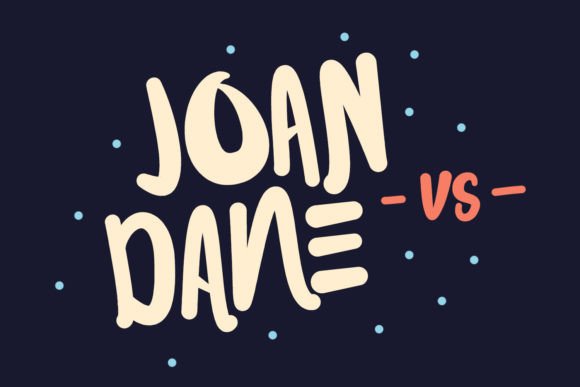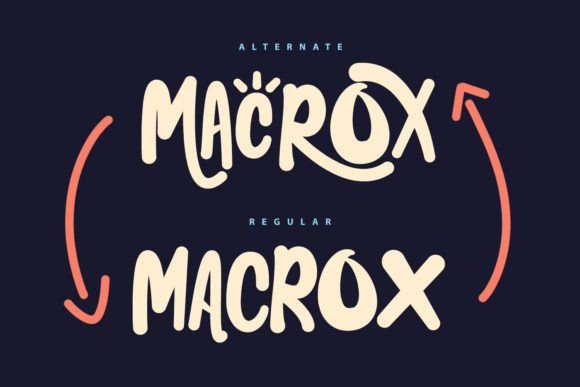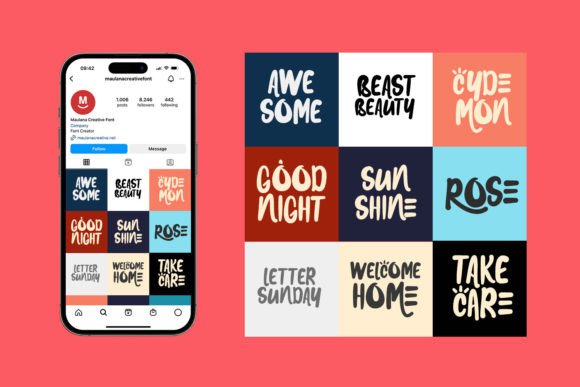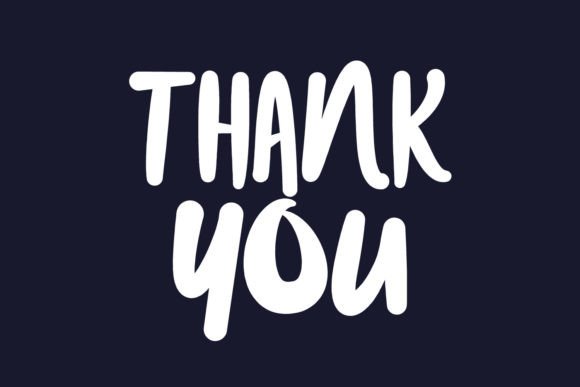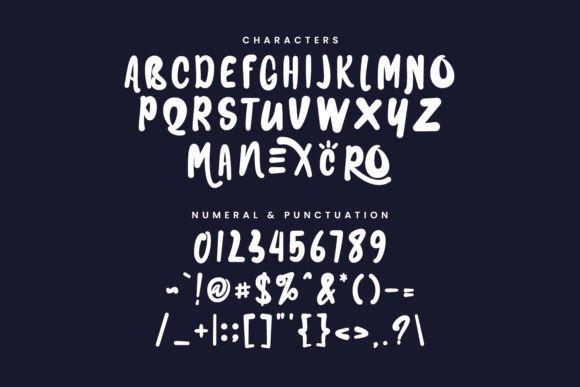
Introduction to Macrox Font
You’ve spent hours perfecting your design, but something’s missing. The colors are right, the composition is on point, but the text just doesn’t have the impact you want it to. That’s where the Macrox Font comes in – a graffiti display font that adds a bold, urban flair to your designs.
Imagine being able to create eye-catching street art, posters, or designs that exude attitude and energy. With Macrox Font, you can bring your creative vision to life and make statements that truly stand out. Whether you’re a seasoned designer or just starting out, this high-quality font is a valuable resource that’s sure to elevate your work.
Key Features of Macrox Font
- High-quality design resource with a unique aesthetic, perfect for creative projects.
- Includes a wide range of characters, including Latin, Cyrillic, and Greek alphabets, as well as punctuation and symbols.
Honest Review: Macrox Font
I recently stumbled upon the Macrox Font and I’m excited to share my thoughts on this design resource. Overall, I’m impressed with the quality and versatility of this font.
- High-quality design: The Macrox Font is well-crafted and exhibits a clean, modern aesthetic.
- Wide range of applications: The Macrox Font is suitable for various creative projects, from logos to editorial content.
- Limited character set: The font’s character set is somewhat limited, which may not be ideal for designers requiring a wide range of characters.
- Not ideal for small text: Due to its clean design, the Macrox Font may not be the best choice for small text or intricate typography.
Overall, the Macrox Font is a solid addition to any designer’s toolkit. Its high-quality design, free availability, and transparent background make it an excellent resource for various creative projects. While it may have some limitations, I believe the Macrox Font is well worth exploring for your next design project.
Tips for Getting the Most Out of Macrox Font
To get the most out of the Macrox Font, experiment with different font sizes, colors, and combinations. You can also use it in conjunction with other design resources to create unique and eye-catching designs.
The Macrox Font is perfect for a wide range of creative projects, including logos, social media graphics, presentations, and documents. It’s also great for personal projects, such as invitations, flyers, and brochures.